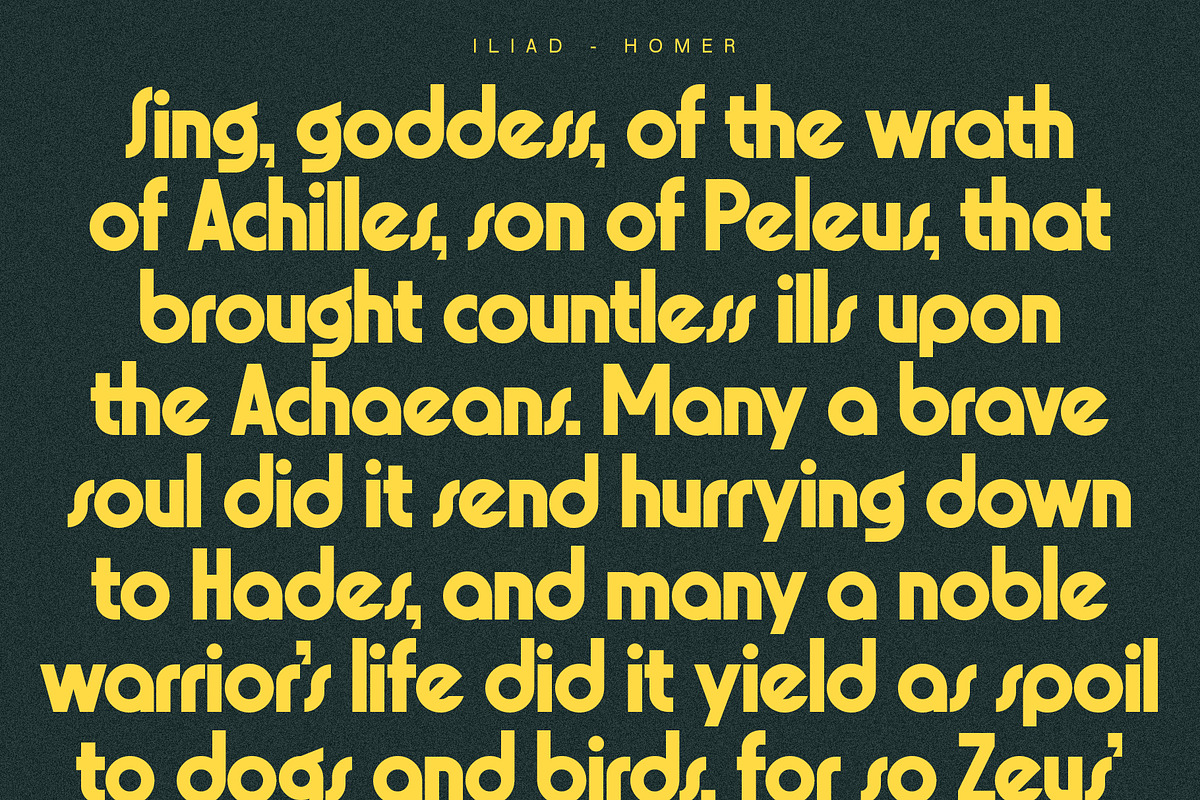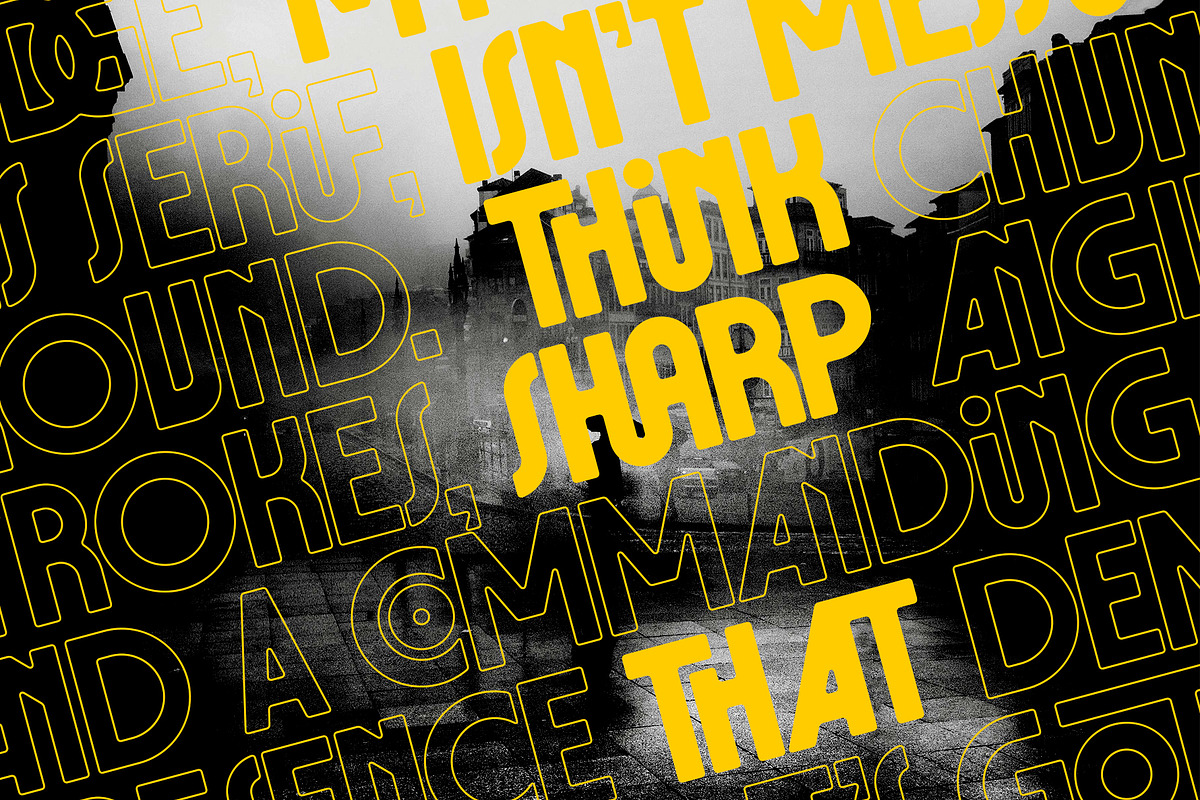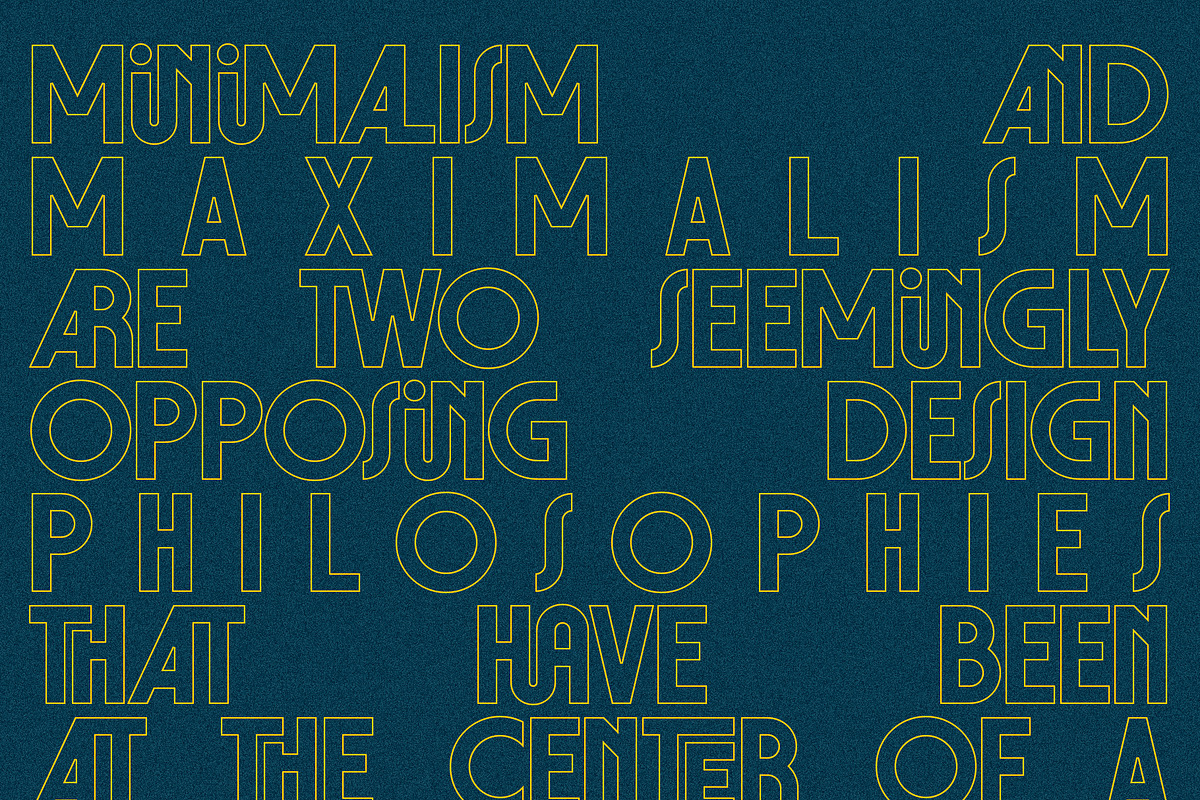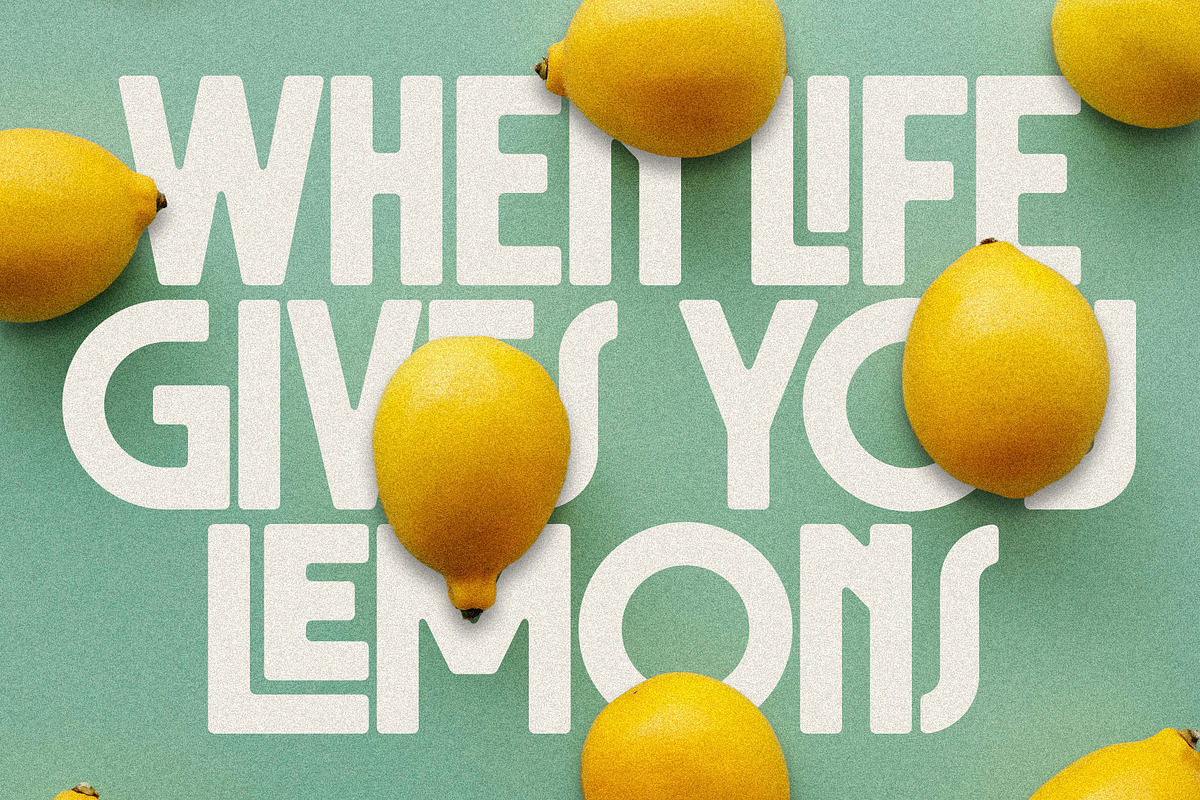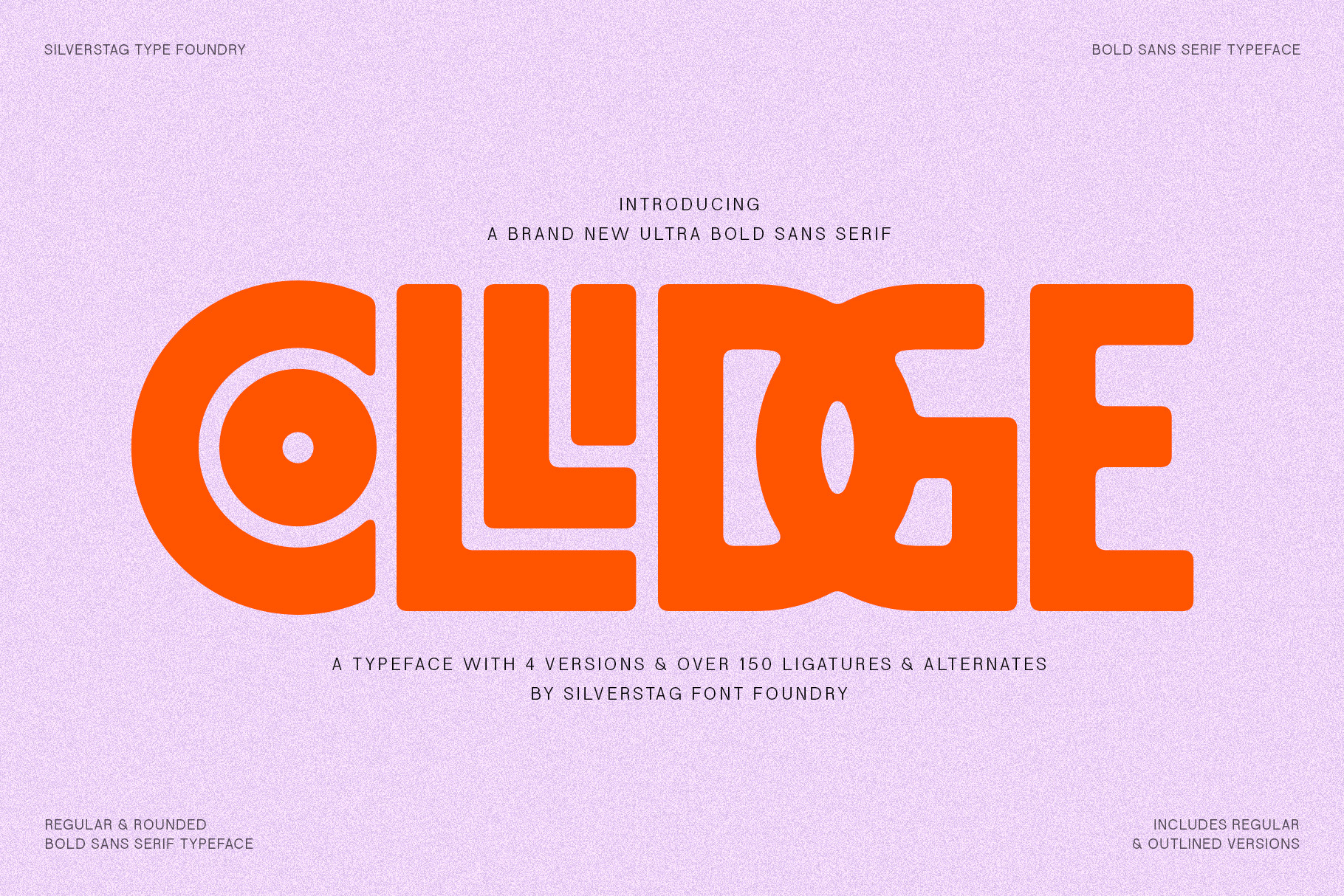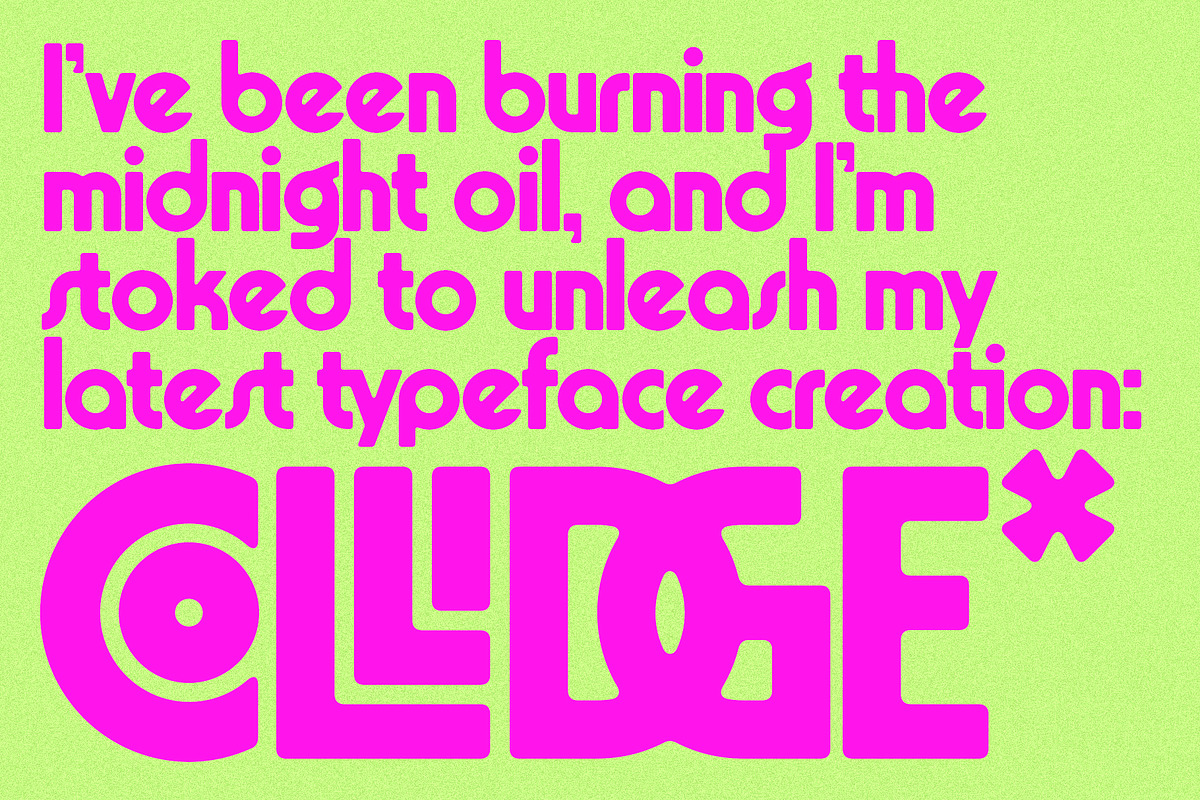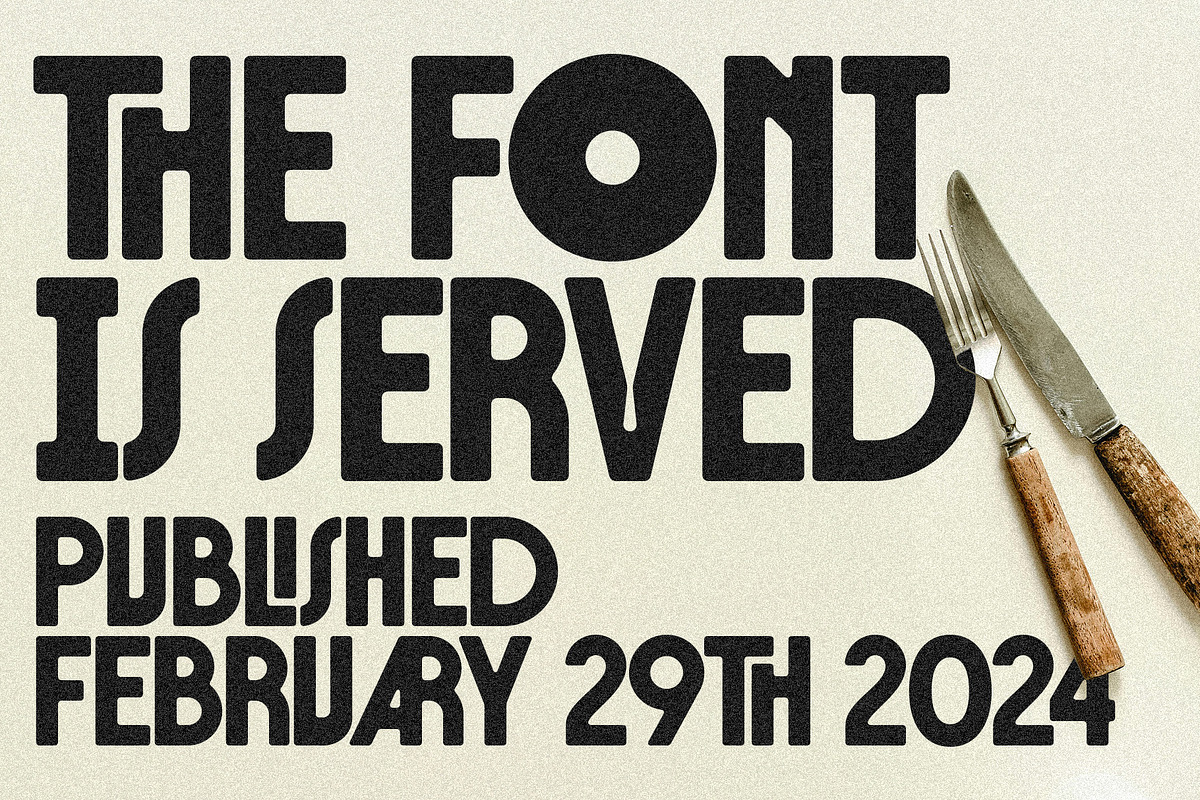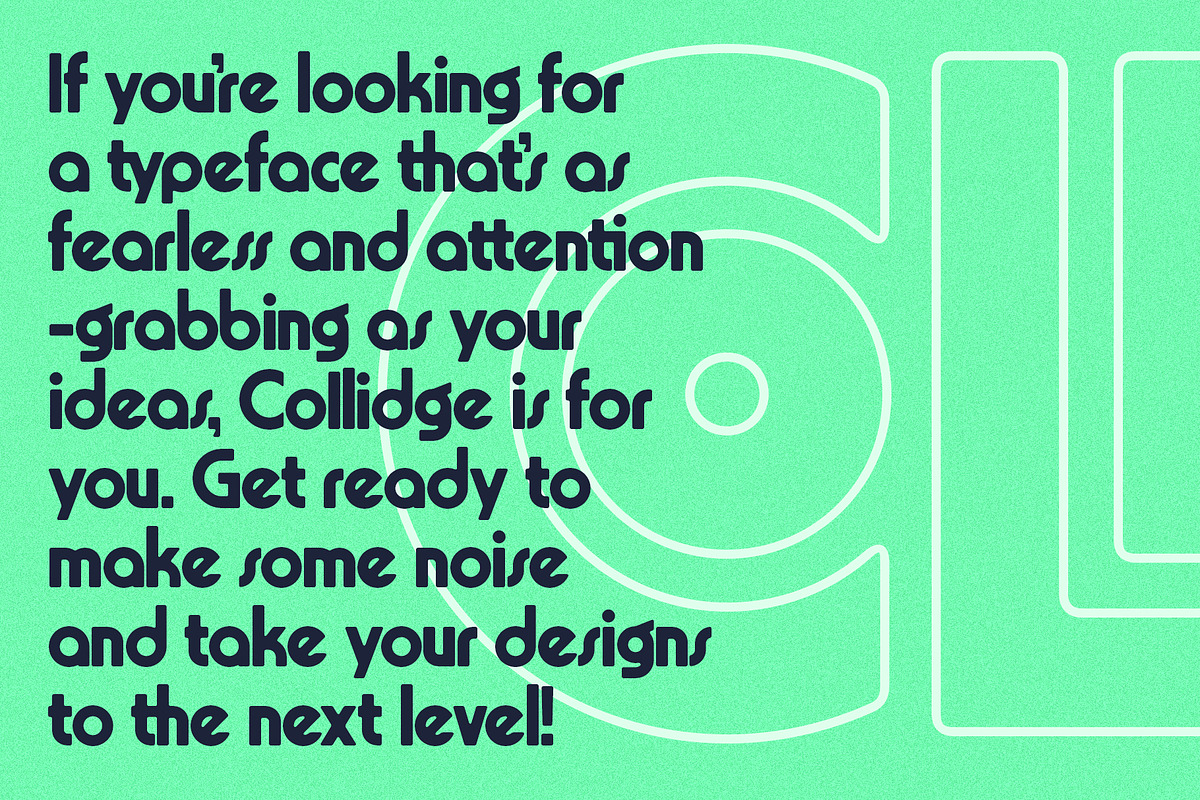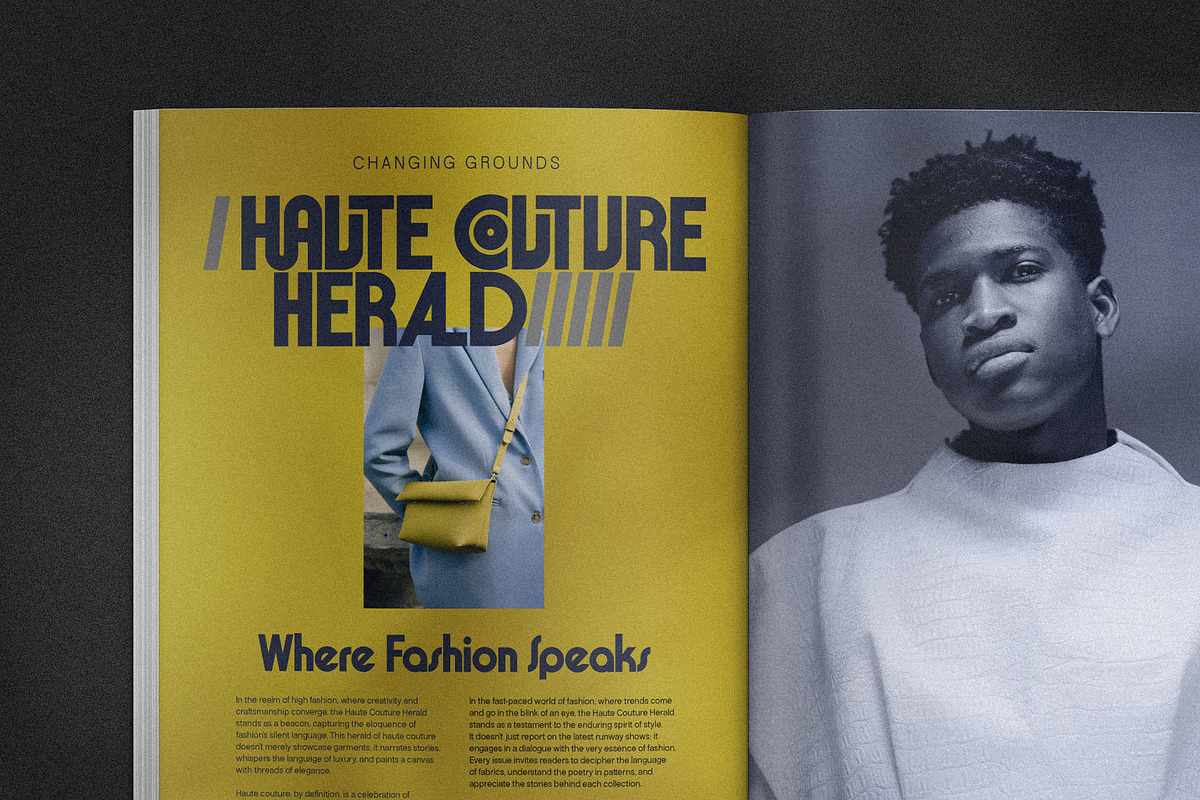
Collidge - Bold Ligature Rich Font
Hey everyone, I've been burning the midnight oil, and I'm stoked to unleash my latest typeface creation: Collidge! This one's for all the designers who crave maximum impact and aren't afraid to turn the volume up to eleven. With four versatile versions – regular, regular outlined, rounded, and rounded outlined – you've got endless options to play with.
Forget boring fonts – I packed this bad boy with over 150 ligatures and alternates. Get experimental and discover hidden gems that'll add that unique, eye-catching flair to your designs.
Boldness Redefined by Collidge
Collidge, my super bold sans serif, isn't messing around. Think chunky strokes, sharp angles, and a commanding presence that demands to be seen. It's got that modern, urban edge that works perfectly for cutting-edge branding, attention-grabbing headlines, and impactful social media graphics.
Global Reach, Limitless Potential with Collidge
No project's too ambitious; Collidge crushes language barriers with multilingual support for over 90 languages. Whether you're working with international brands or reaching a diverse audience, this typeface has you covered.
Picture Collidge emblazoned on:
- Powerful sports posters and promos
- Trendy streetwear labels
- Edgy magazine layouts
- Unforgettable website banners
- Dynamic logo designs
- Ready to Amplify Your Work with Collidge?
If you're looking for a typeface that's as fearless and attention-grabbing as your ideas, Collidge is for you. Get ready to make some noise and take your designs to the next level!